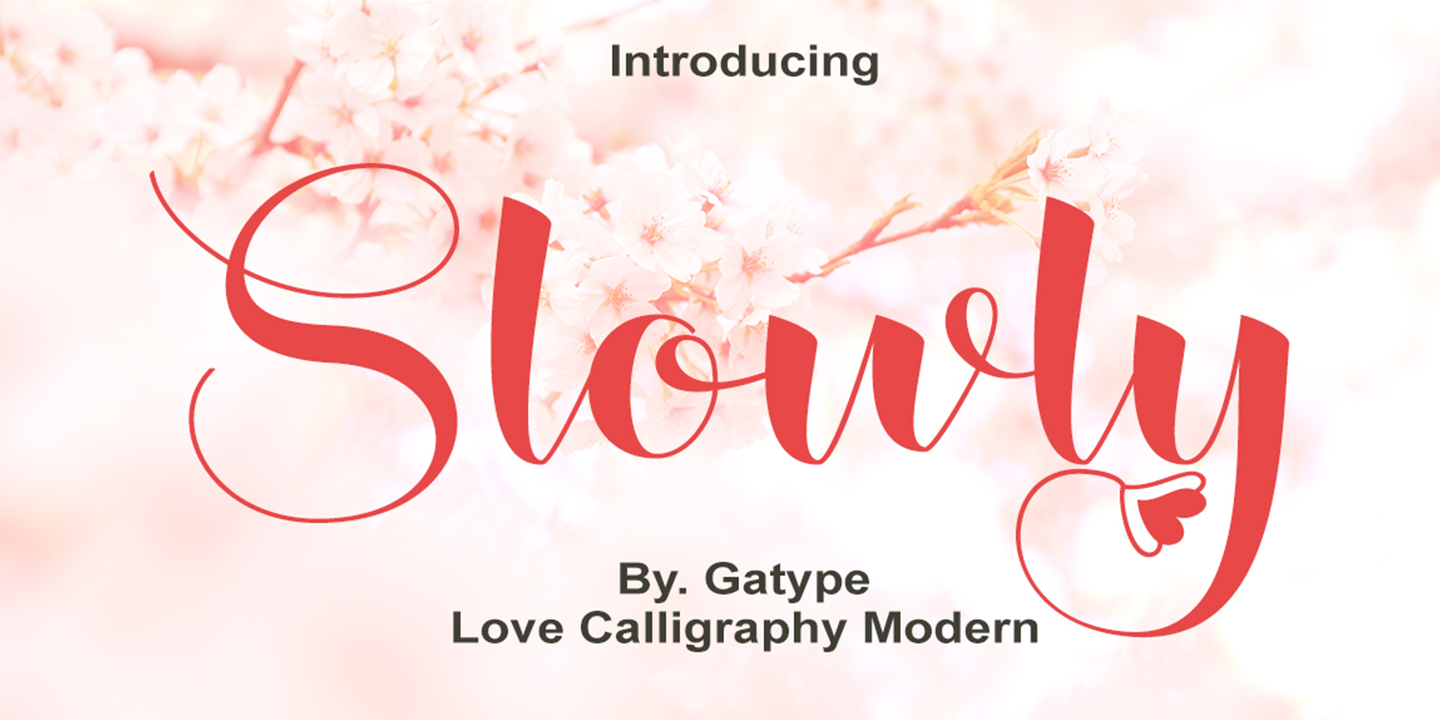
Slowly
Slowly is a modern calligraphy font family published by Gatype.
Slowly is a sharp font, I made it with my relaxed hand. design font but has a modern element to it, which makes it perfect for wedding media, book covers, greeting cards, logos, branding, business cards and certificates, even for any design work that requires a classic, formal or luxurious look.
Includes multilingual support and ornamental handwriting
There are many features in it. Contains a full set of lowercase and uppercase letters, punctuation, numbers, and multilingual support. This font also includes several ligatures and alternative Stylistic Set styles for those of you who have software capable of working with OpenType (Corel Draw/Photoshop/Ilustrator/InDesign).